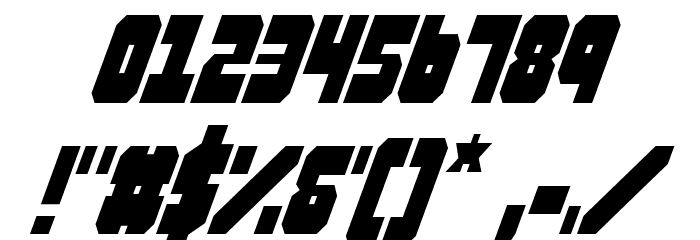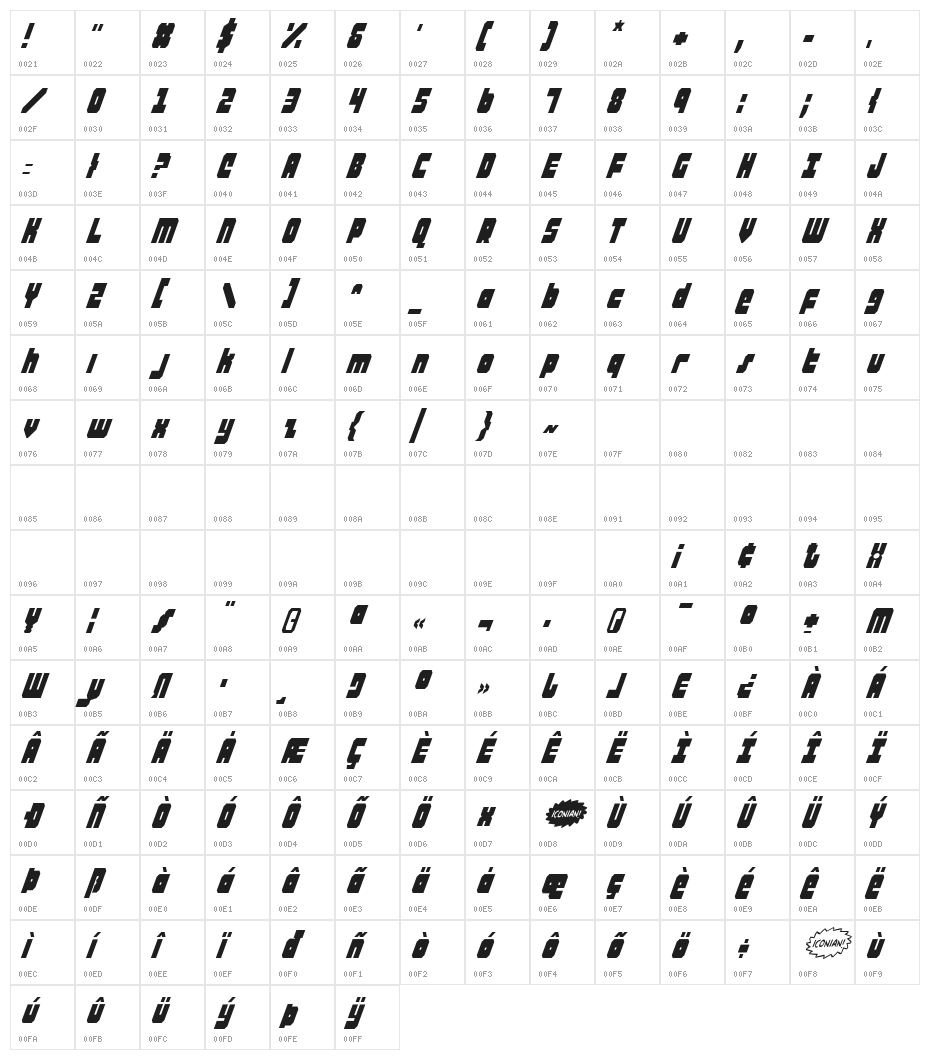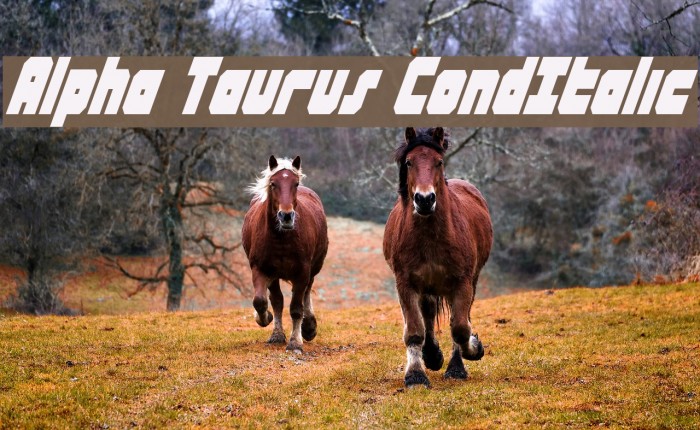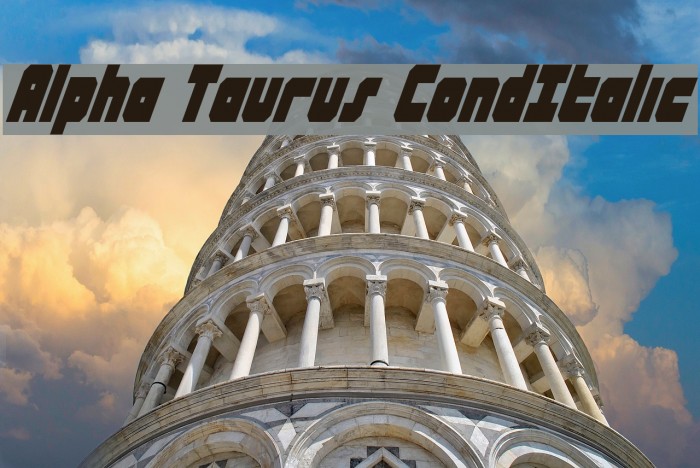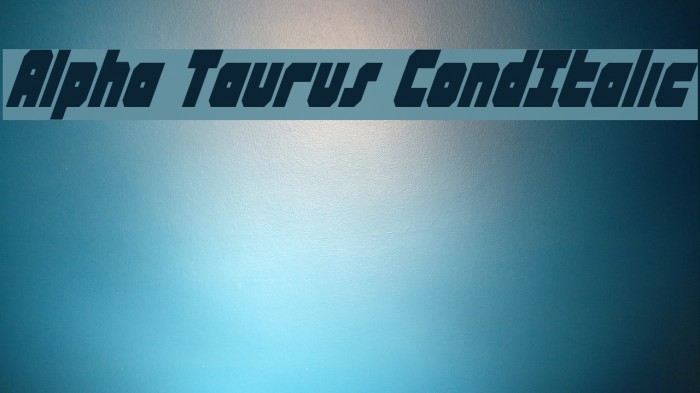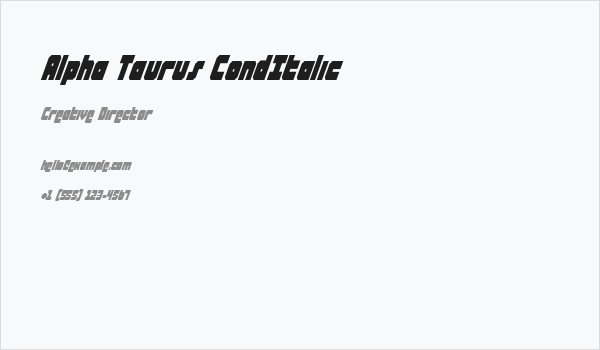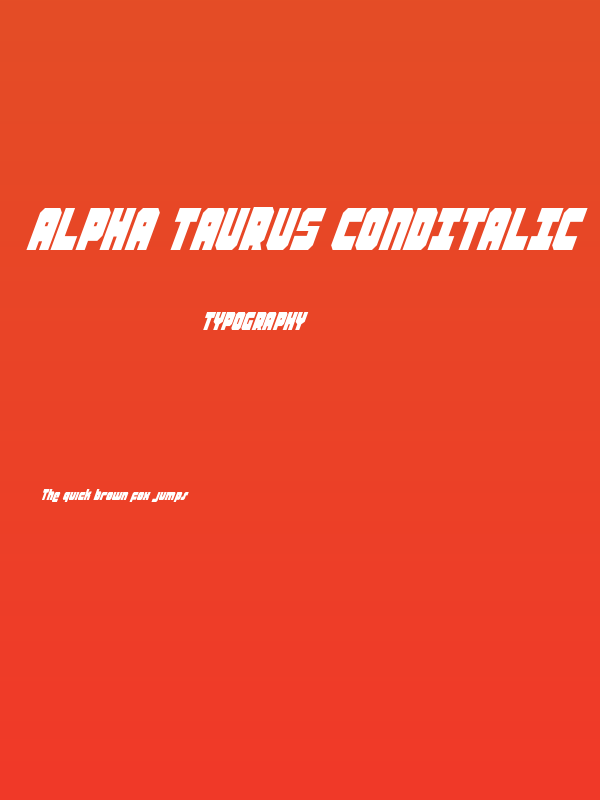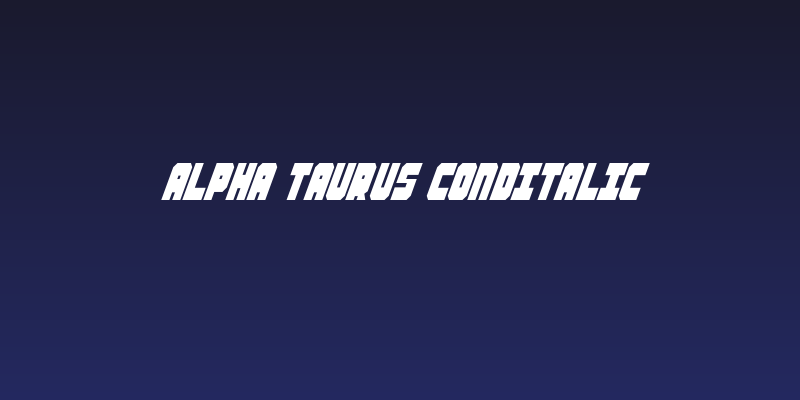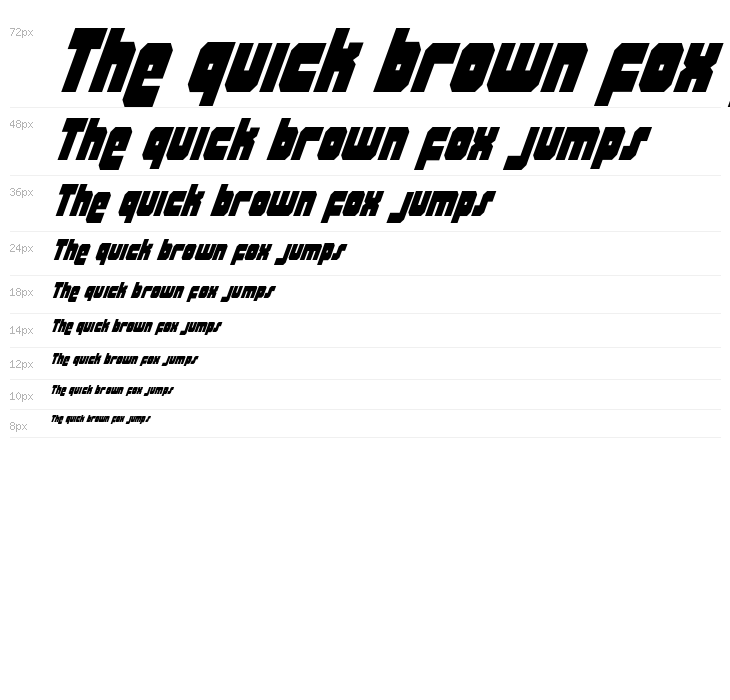
Alpha Taurus CondItalic Font
Alpha Taurus CondItalic Description
This font features a bold and dynamic design with a strong geometric structure. The characters are sharply angled, giving them a futuristic and aggressive appearance. The italic style adds a sense of motion and speed, making it ideal for attention-grabbing headlines or branding that requires a modern and edgy look. The uppercase and lowercase letters maintain a consistent style, with the numbers and special characters following suit. The overall design is cohesive and impactful, suitable for projects that aim to convey strength and innovation.